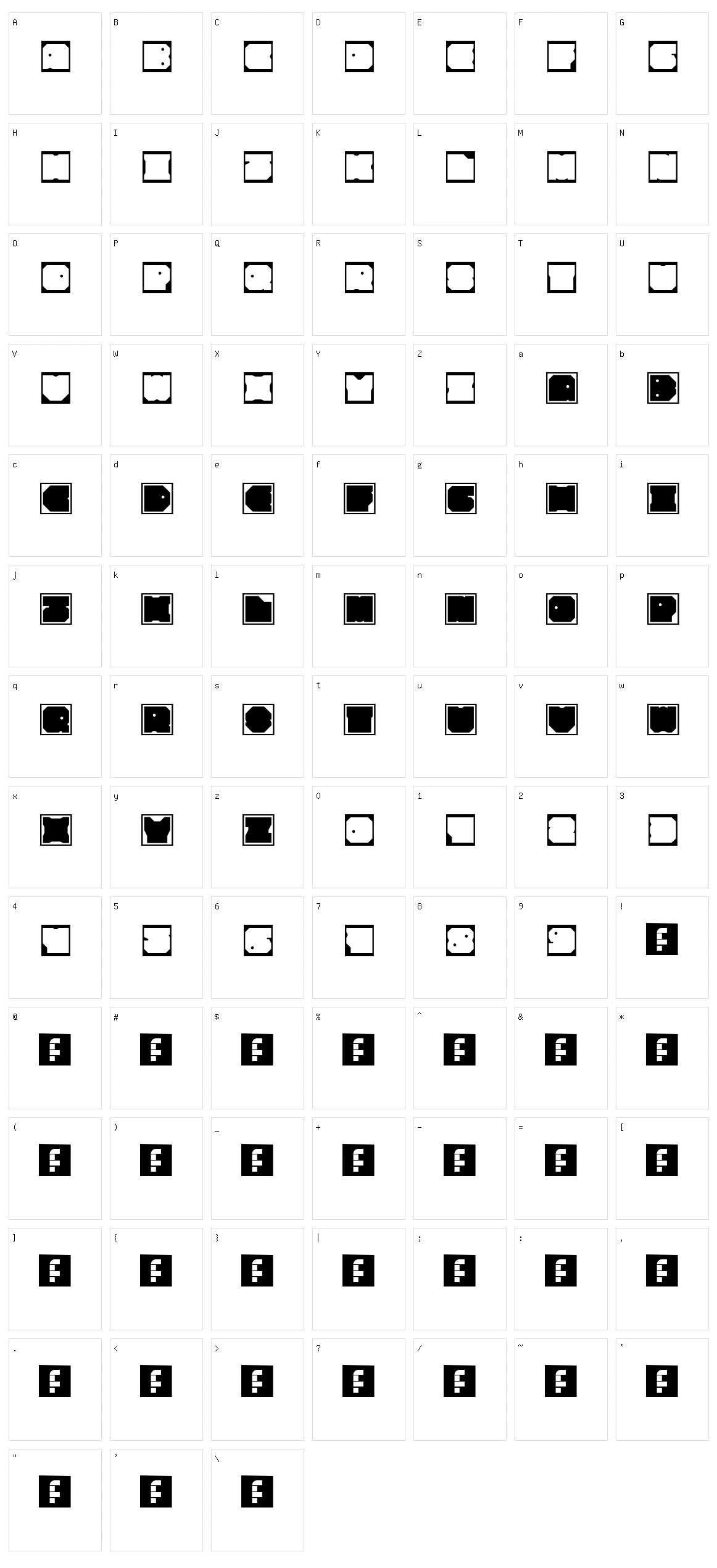
The free font Anti-Biased is carefully designed by MrtheNoronha, showcasing a thoughtful balance of creativity and usability and falls under the Square font style. When you download the ZIP file, it contains only 6.36 KB of font files, making it lightweight and quick to download. Please review the license details below to understand permitted usage and distribution rights. If license information is not available, we recommend using this font for personal projects only or contacting the author directly for commercial usage permissions.